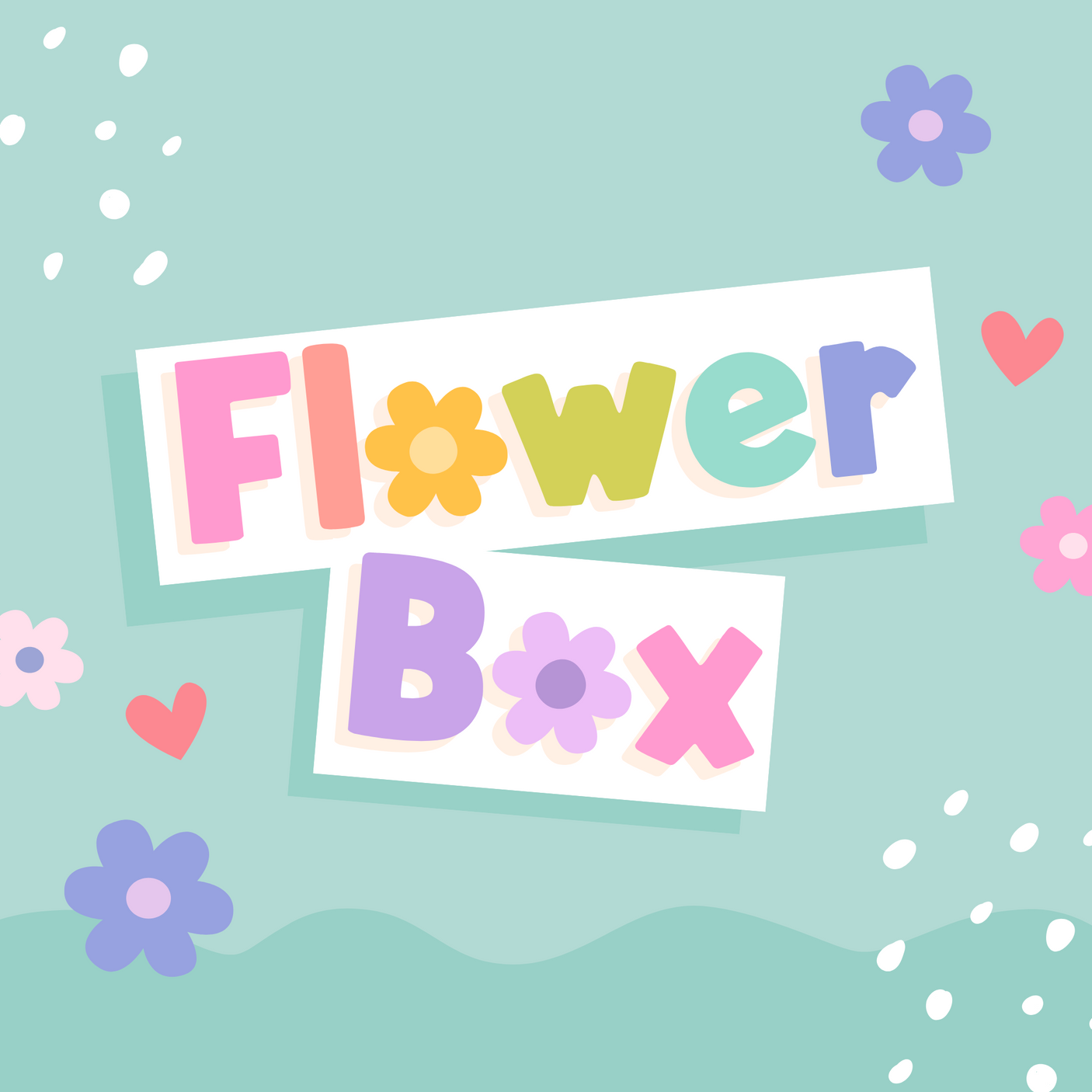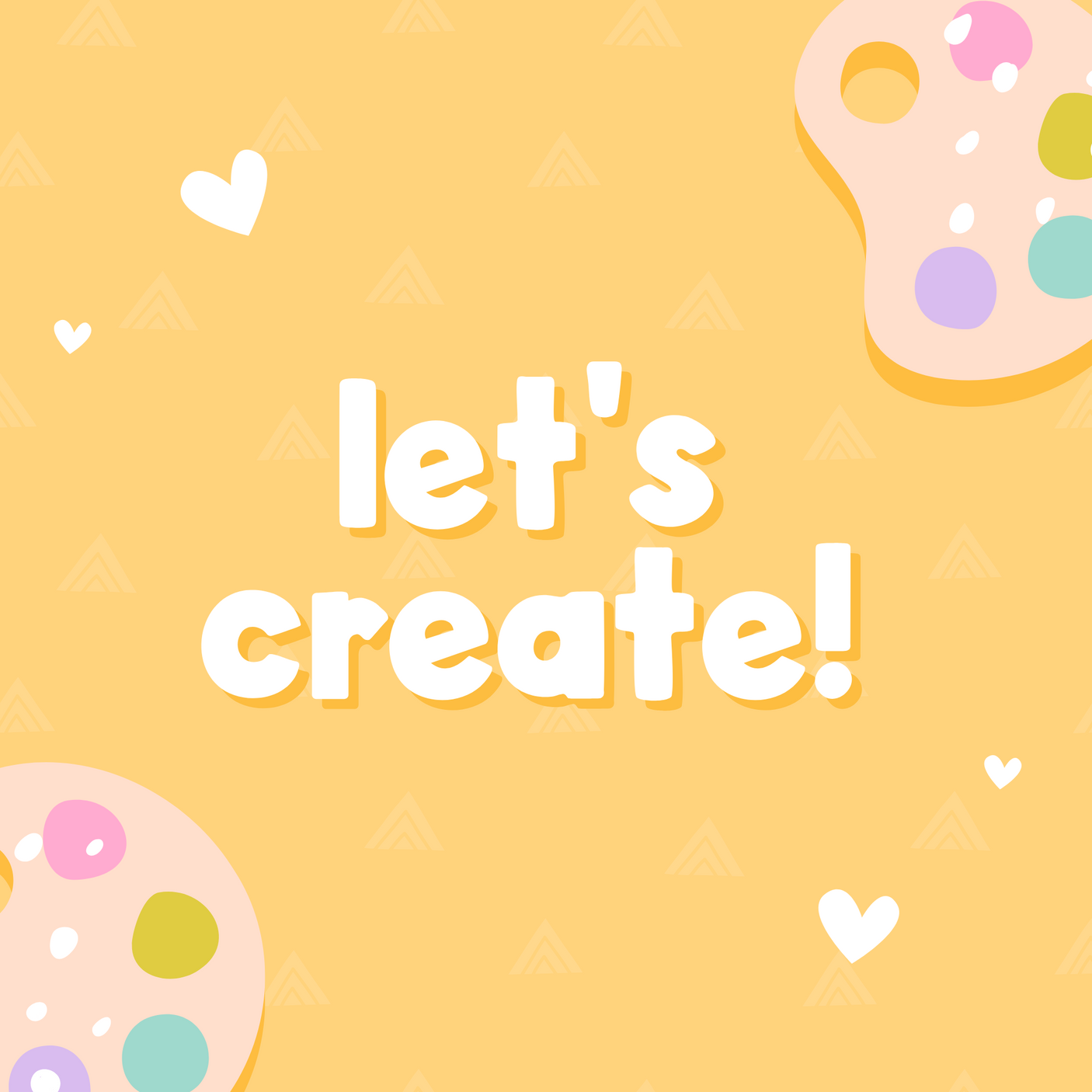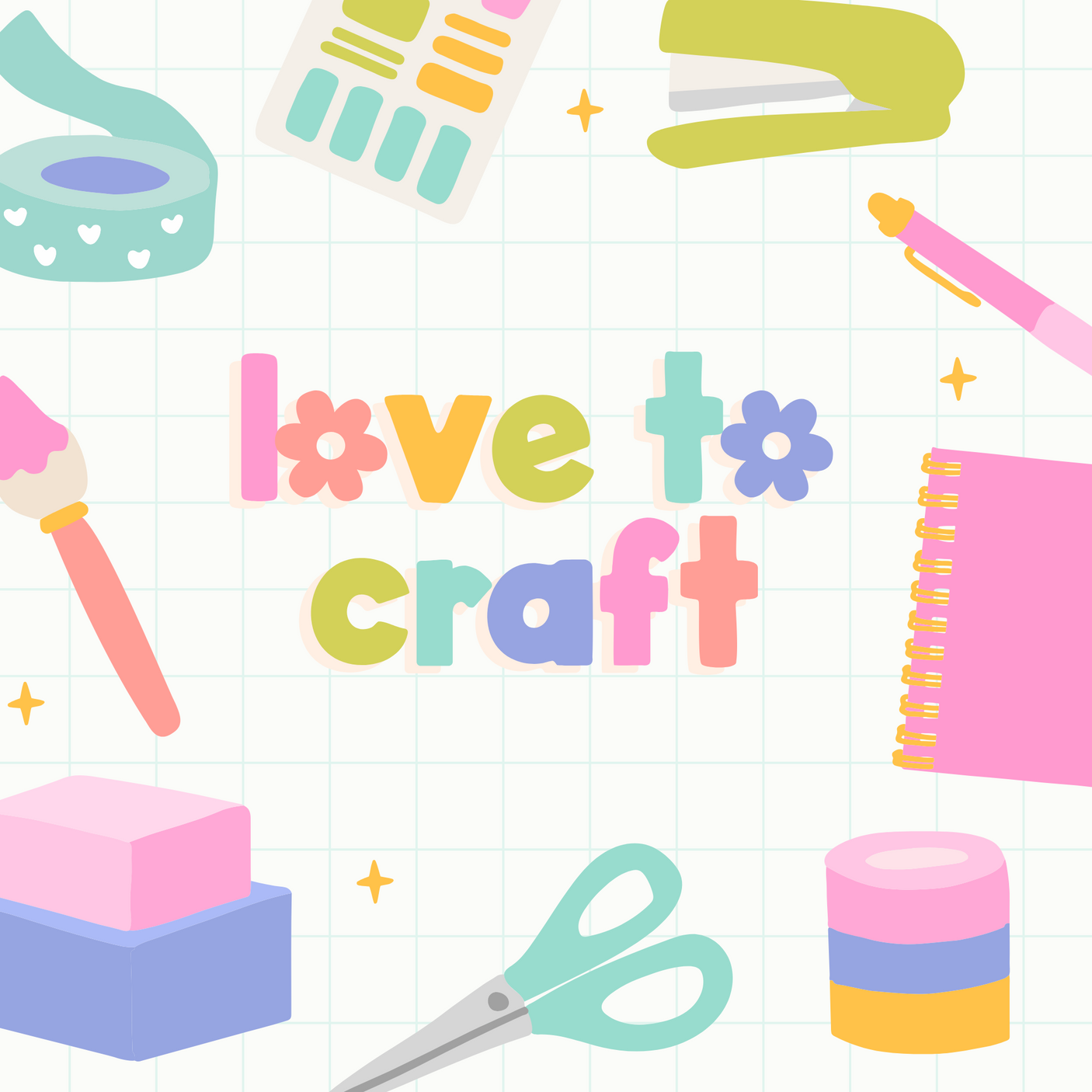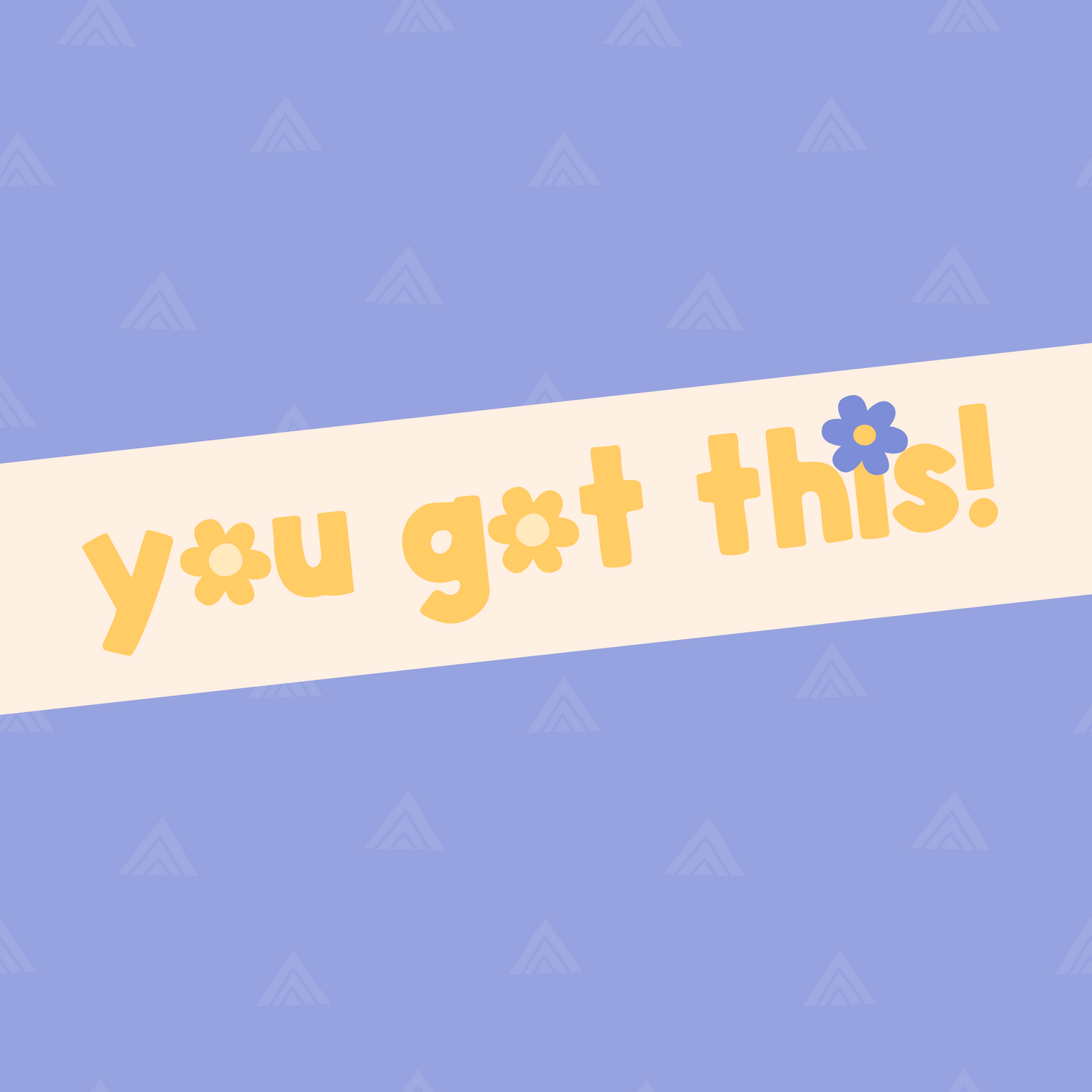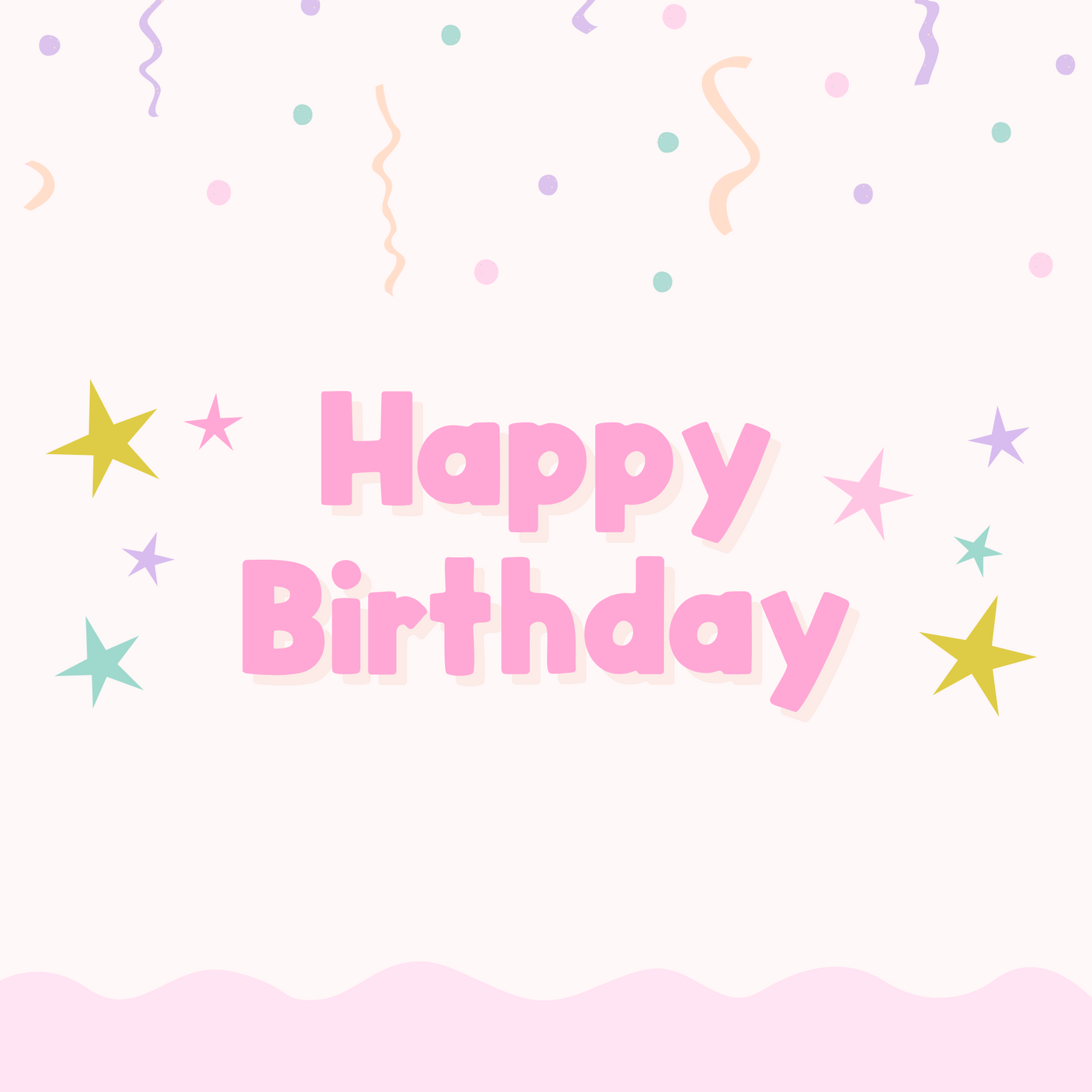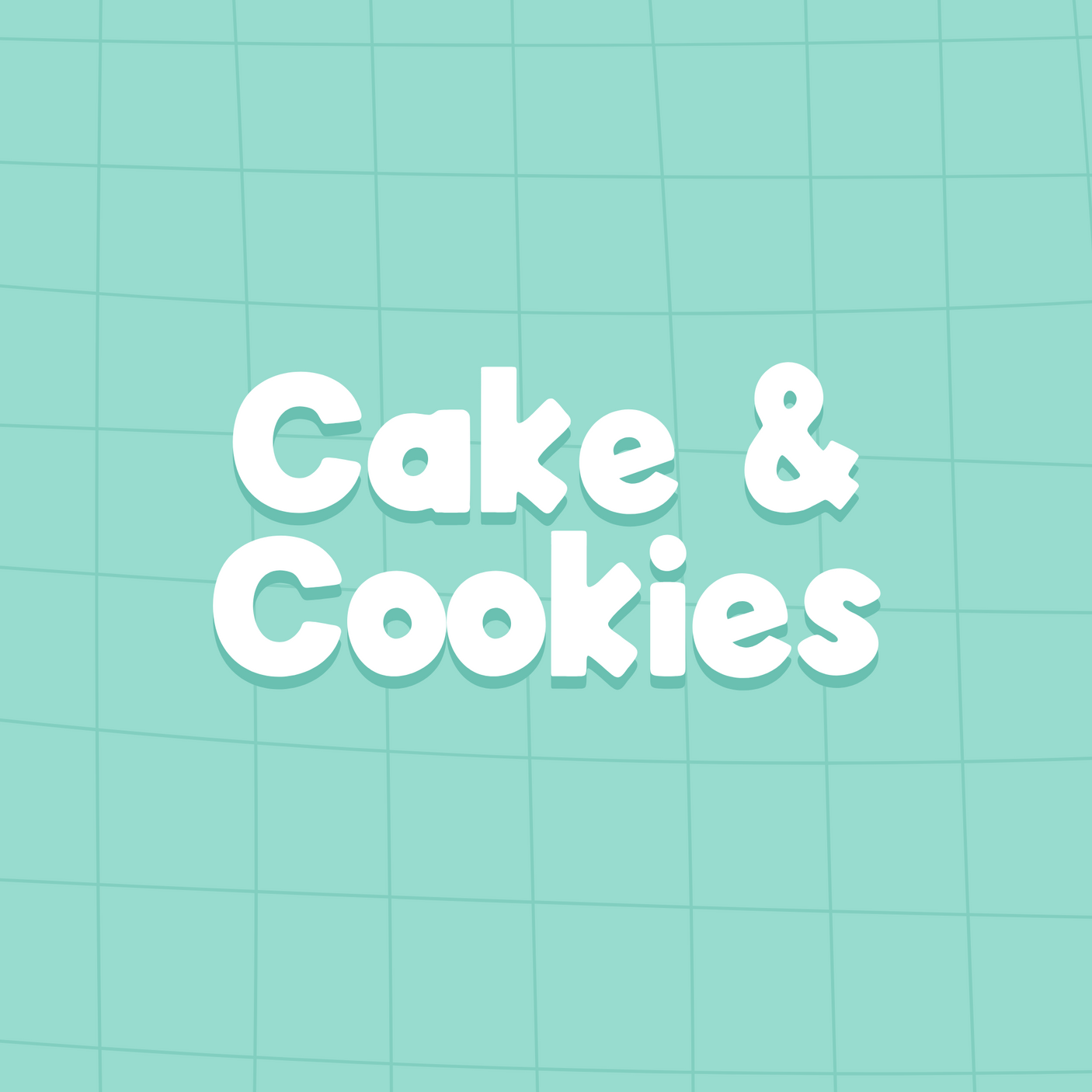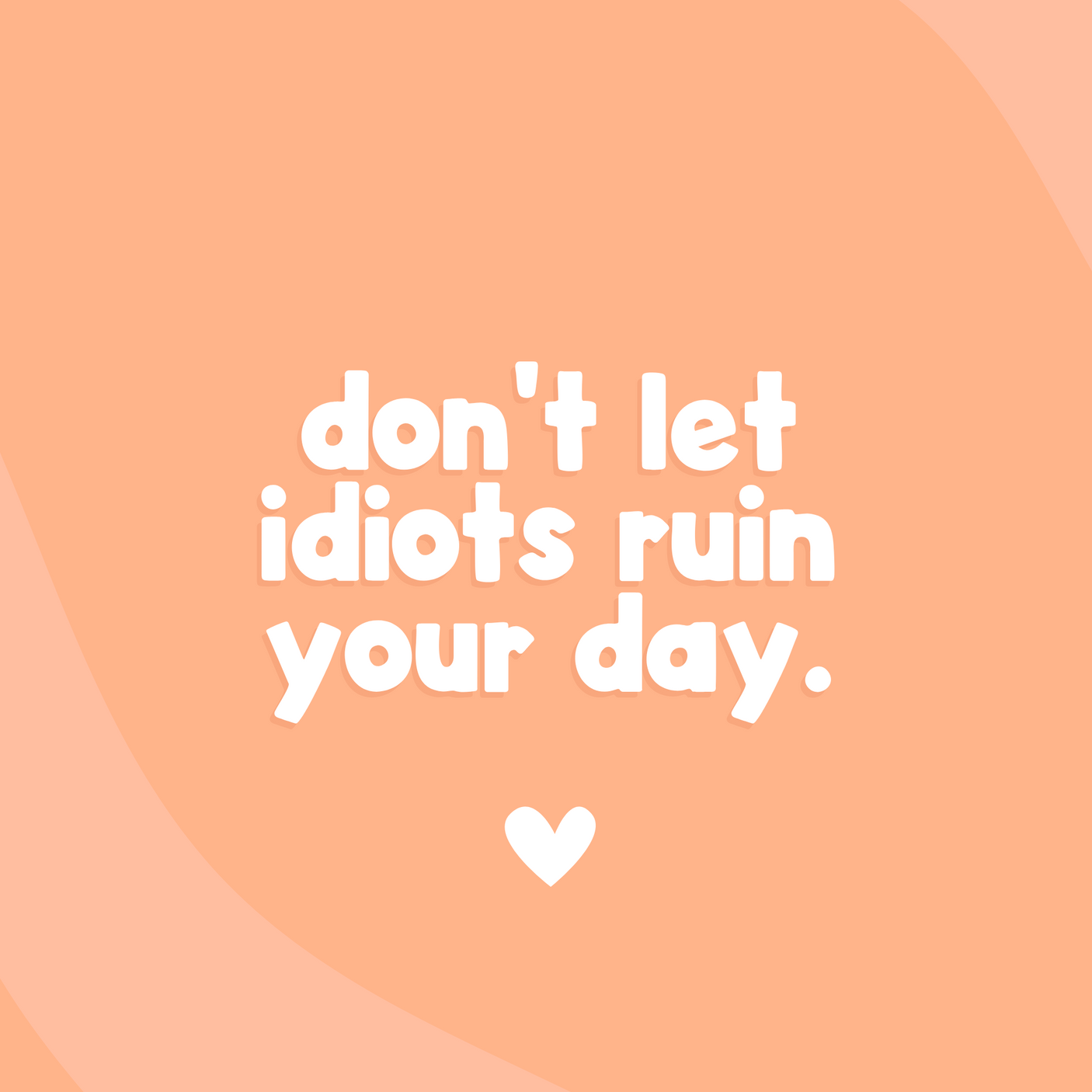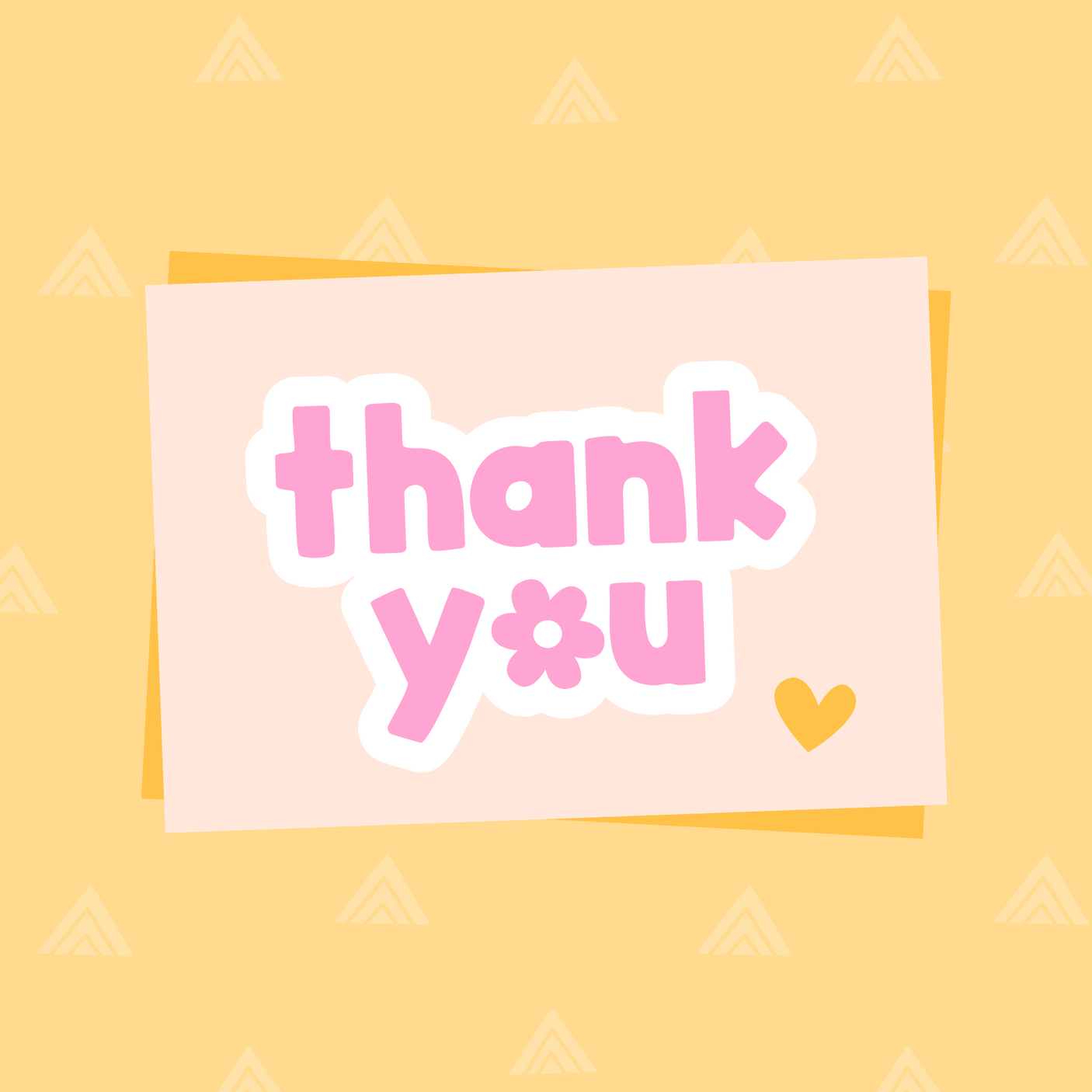
Flower Box Font
Get ready to make your designs blossom with Flower Box, the ultimate bold and playful font! Perfect for adding a splash of fun and personality, Flower Box features chunky letters with a floral twist: the lowercase and uppercase o's are transformed into adorable flowers, making every design pop.
For a more classic look, switch to Flower Box Plain, where the o's stay simple and stylish, giving you two versatile options in one font pack.
Whether you're creating logos, posters, classroom decor, or anything else that needs a bold statement, Flower Box is the perfect choice. Teachers, creators, and playful designers will love the charm and versatility this font brings to their projects!